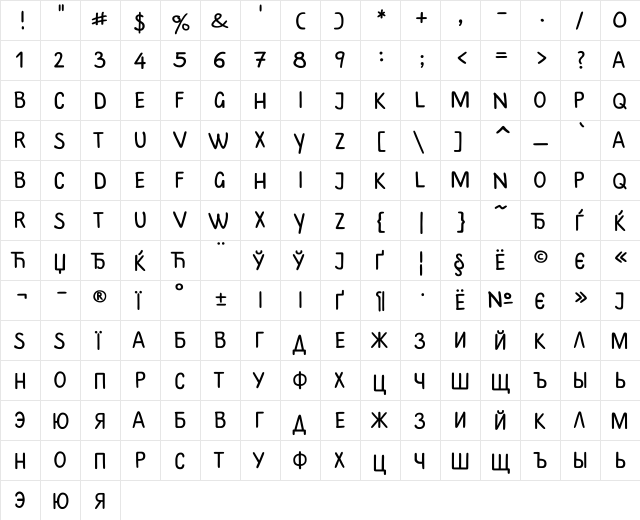
PlainScriptCTT Normal
Design Context for PlainScriptCTT Typeface
PlainScriptCTT flows with the natural rhythm of handwritten lettering, making it ideal for designs that call for warmth and personal expression.